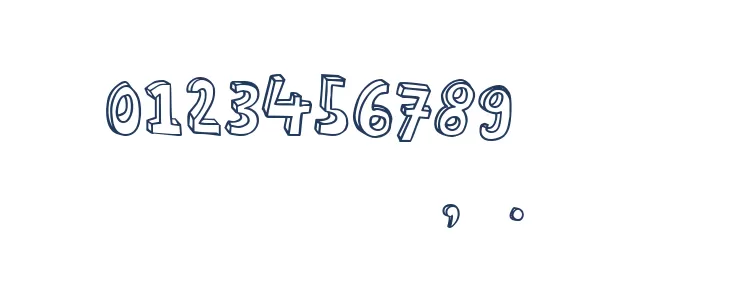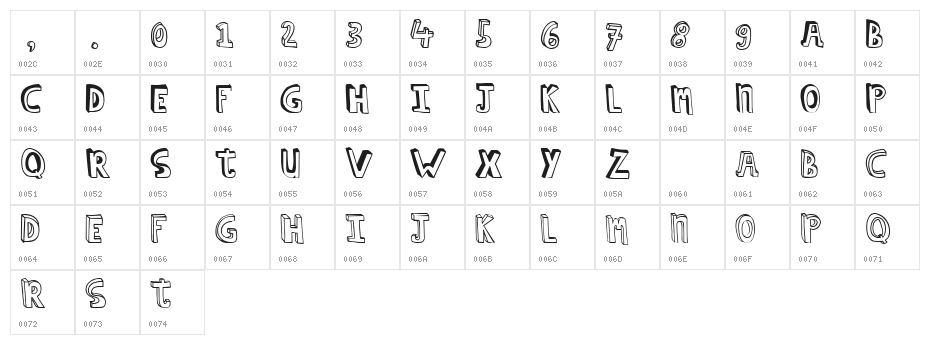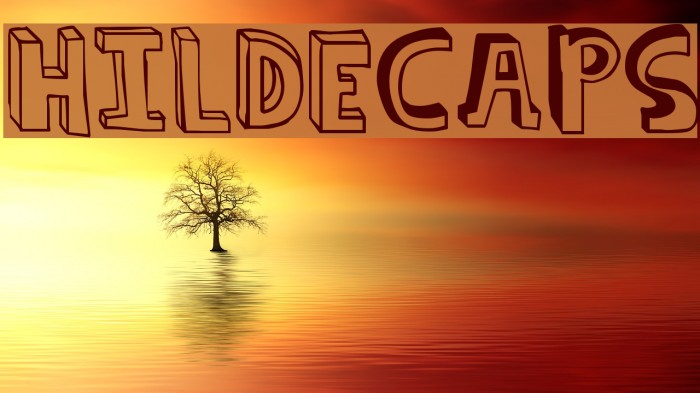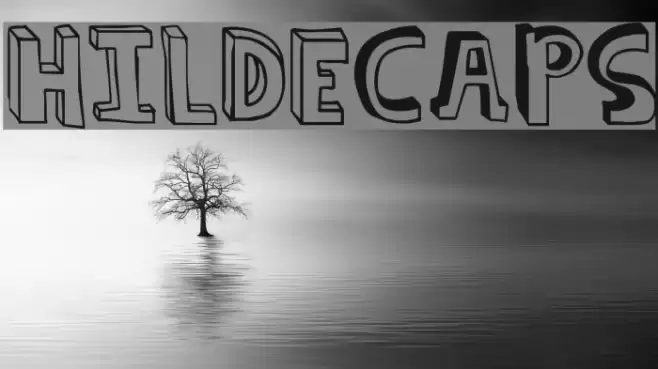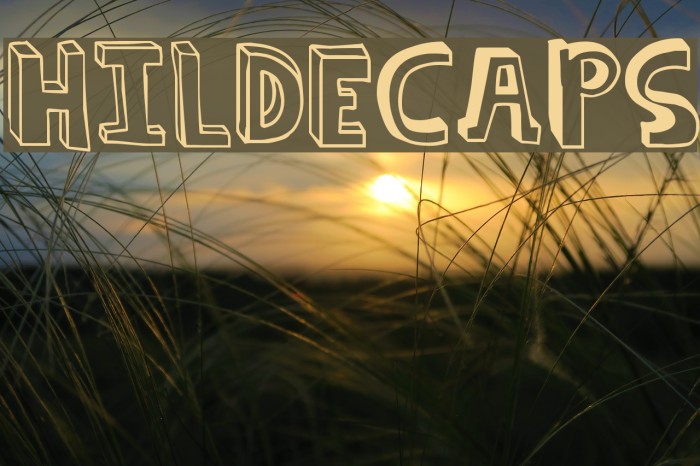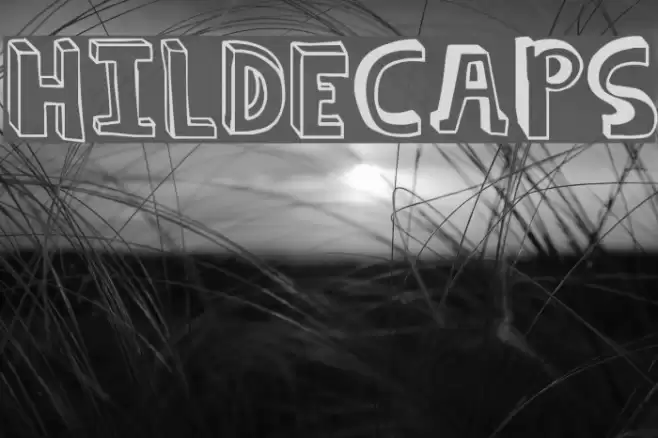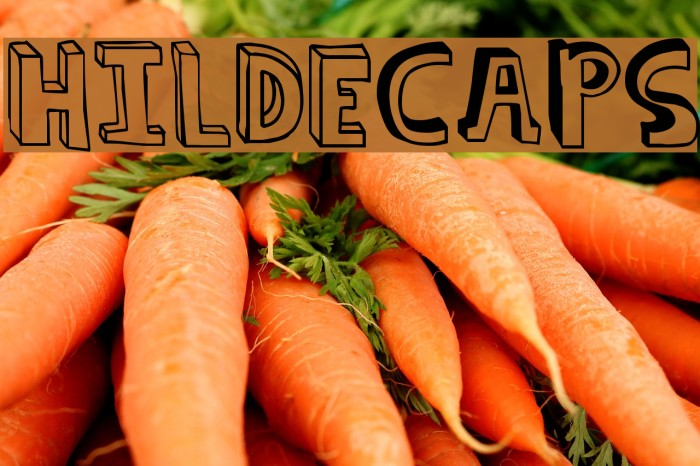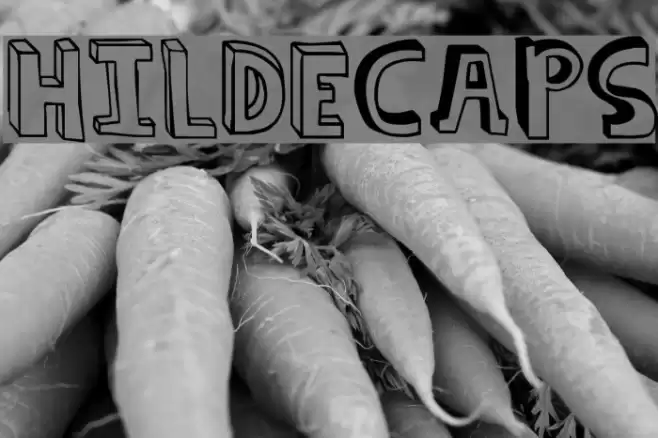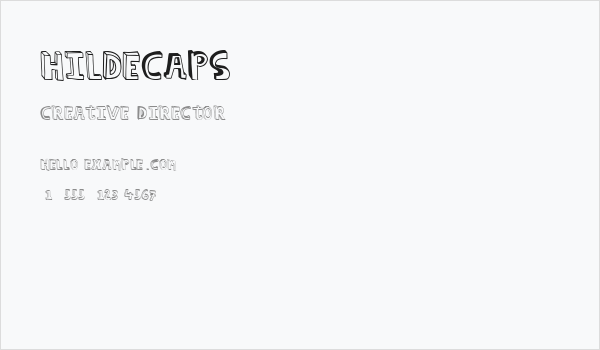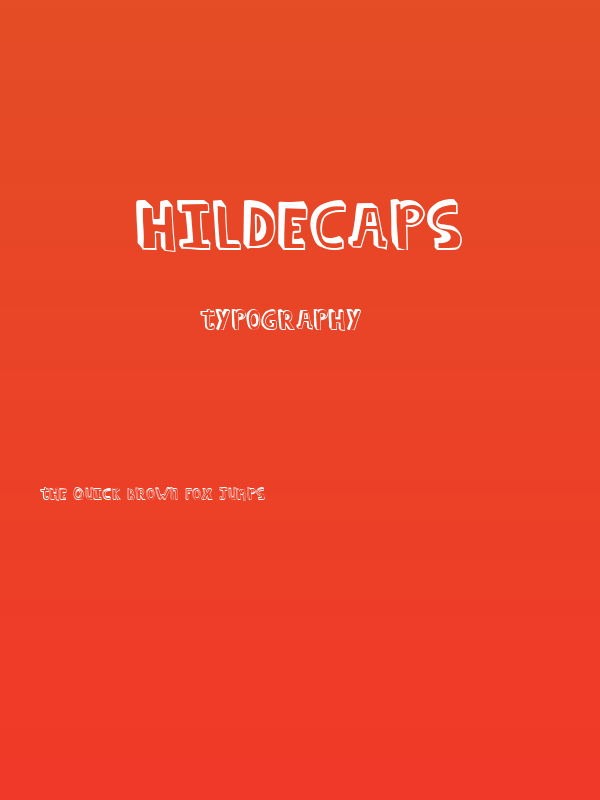
hildeCAPS Font
hildeCAPS Description
This playful and bold font features a hand-drawn, three-dimensional style that gives each character a unique and dynamic appearance. The letters are outlined with a thick black line, creating a shadow effect that adds depth and a sense of movement. The irregular shapes and slightly uneven lines contribute to its whimsical and informal look, making it ideal for projects that require a fun and engaging visual element. The font includes both uppercase and lowercase letters, numbers, and a selection of punctuation marks, all maintaining the same lively and energetic style.
| Proposed Projects | Ideal for children's books, comic strips, playful branding, and creative posters. |